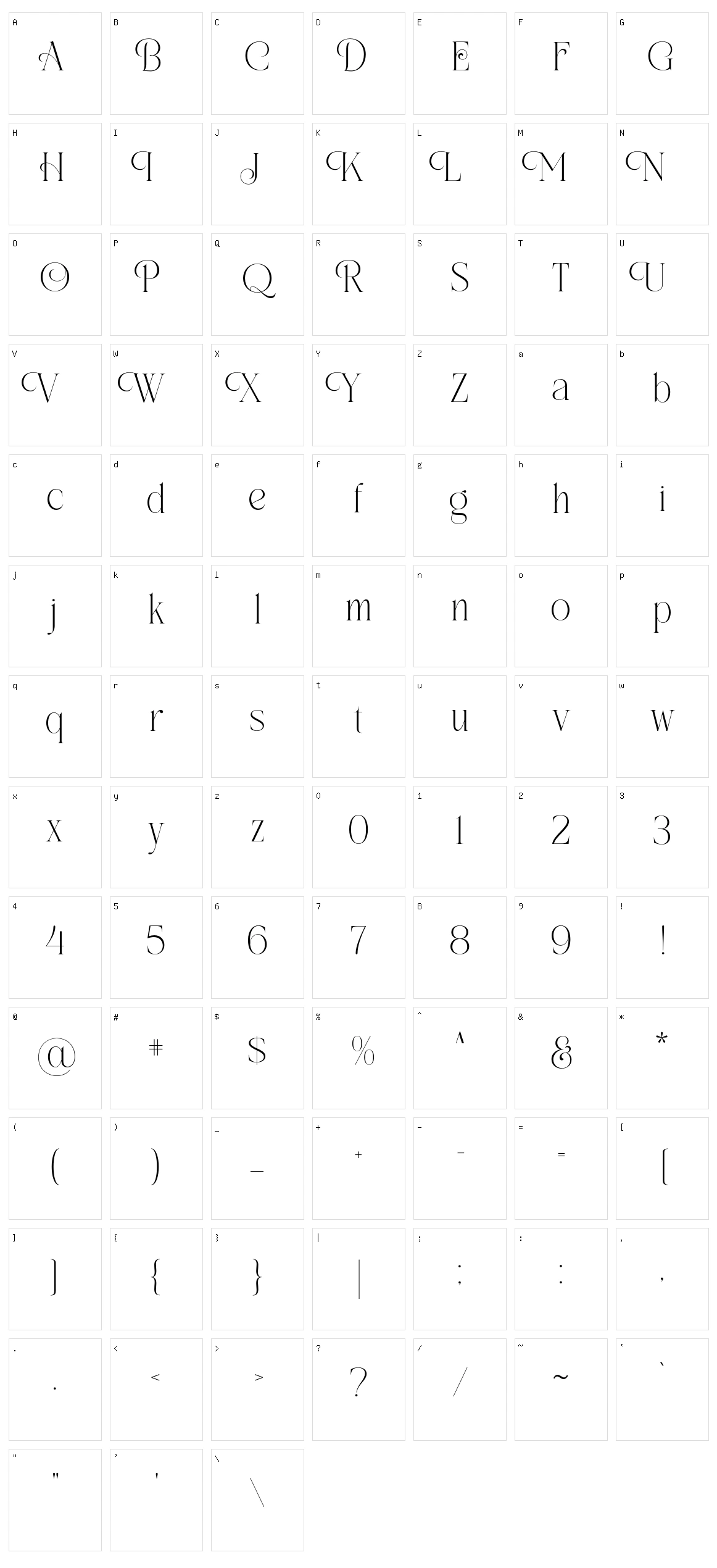
The free font Theater Brillion is carefully designed by Senzana, showcasing a thoughtful balance of creativity and usability and falls under the Retro font style. When you download the ZIP file, it contains only 2820.01 KB of font files, making it lightweight and quick to download. Please review the license details below to understand permitted usage and distribution rights. If license information is not available, we recommend using this font for personal projects only or contacting the author directly for commercial usage permissions.